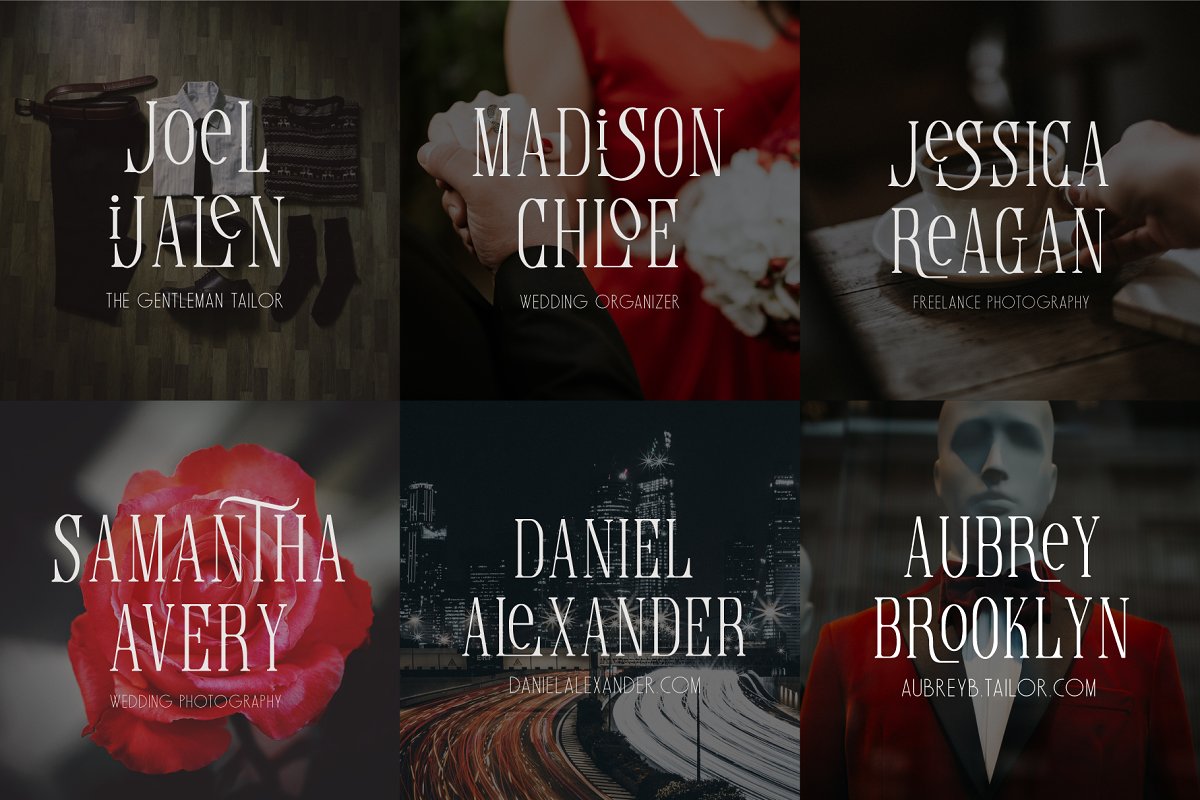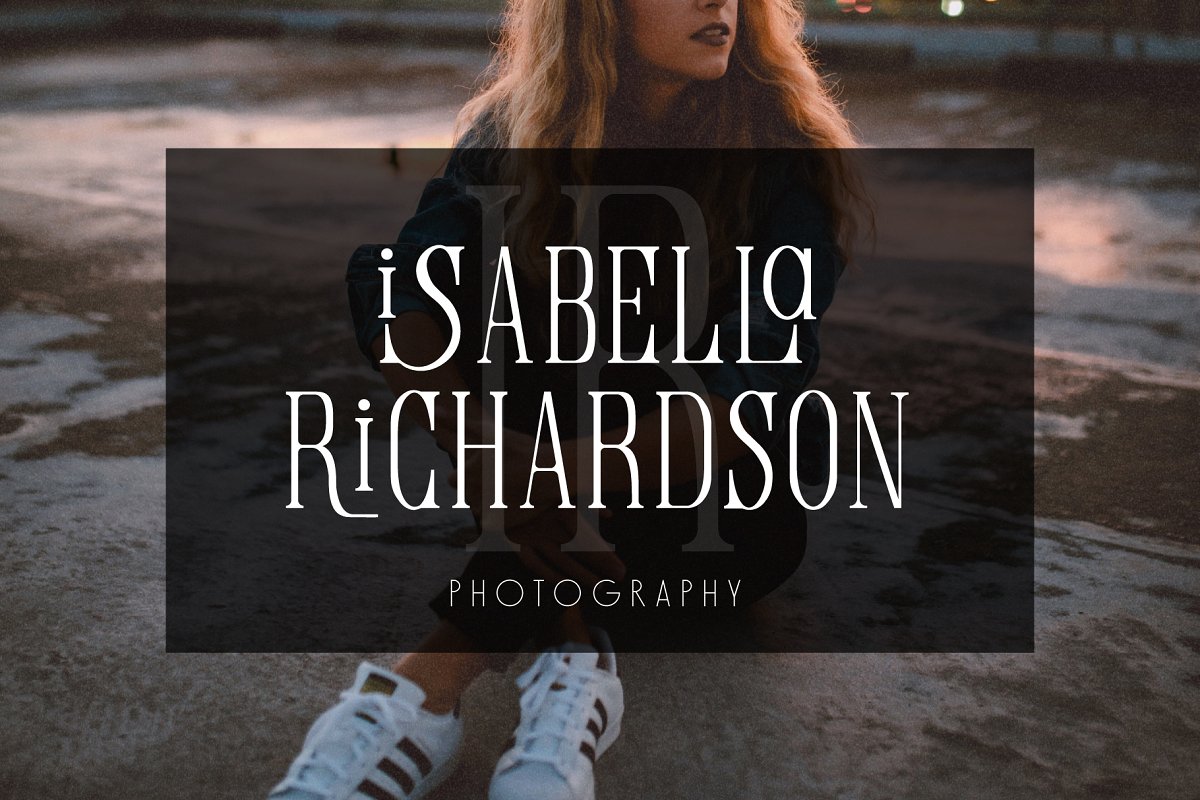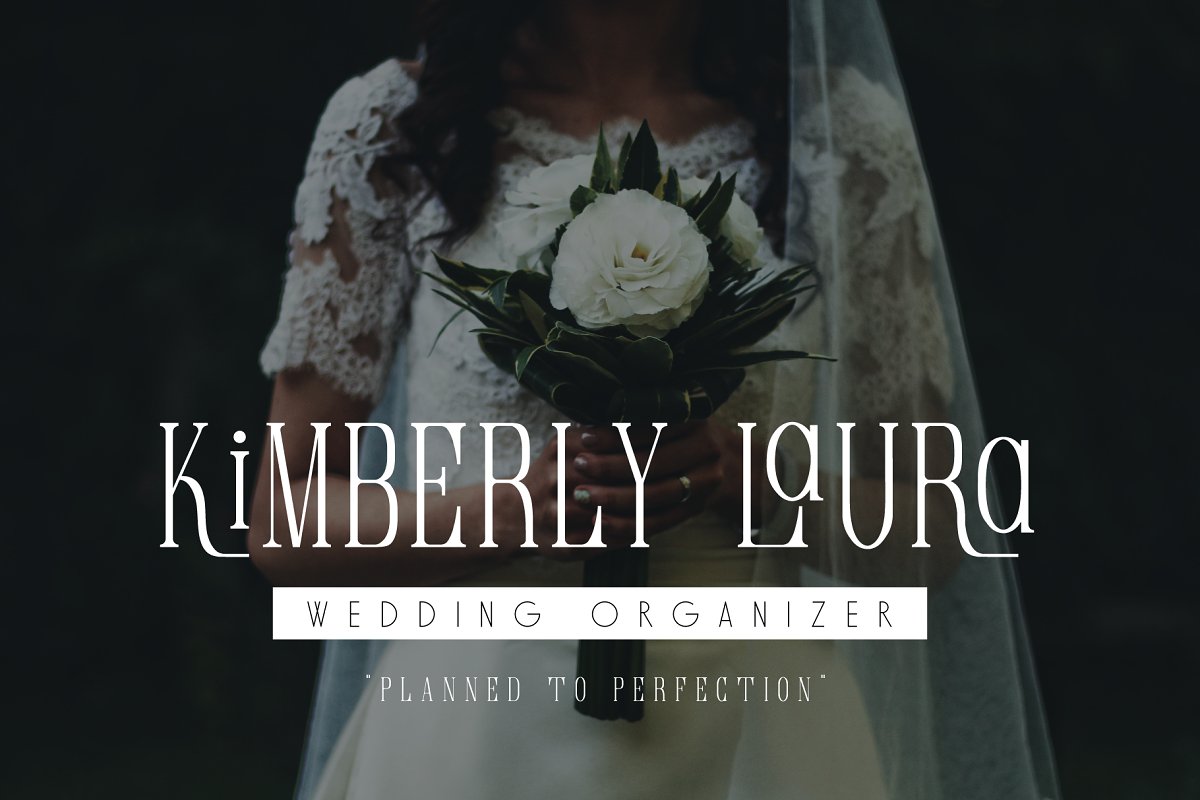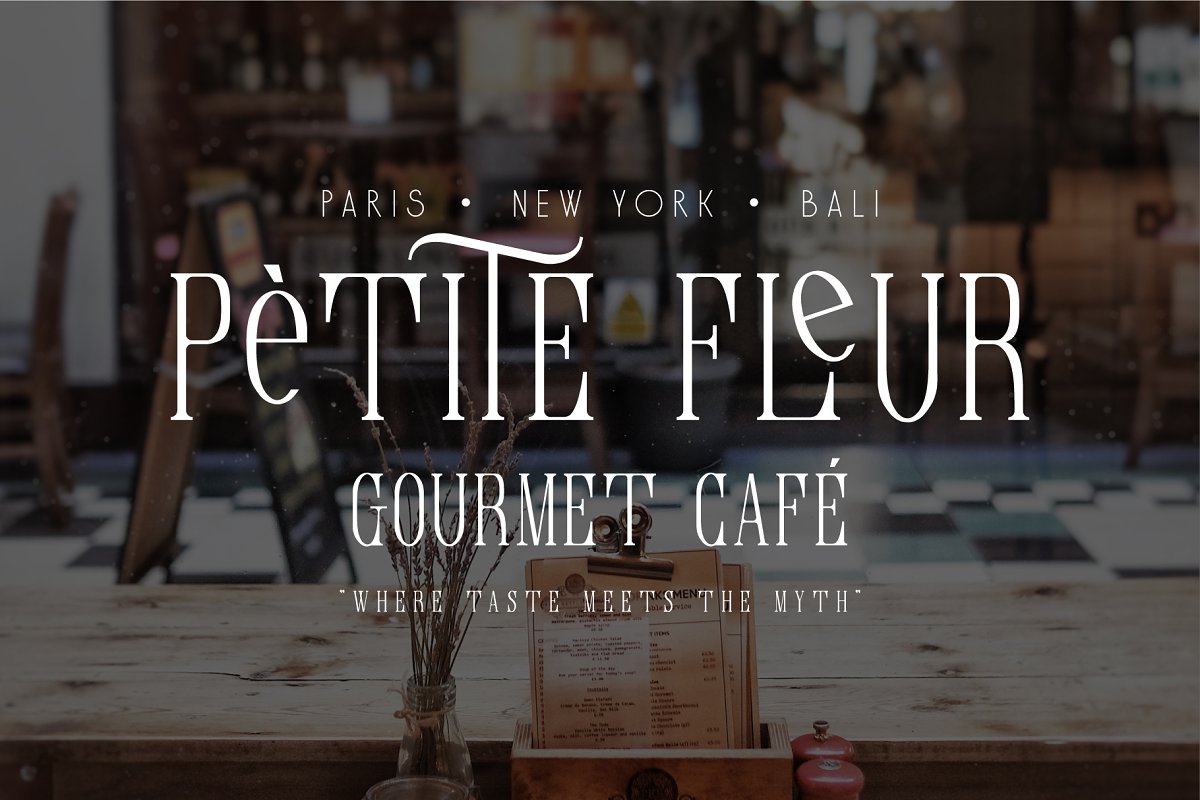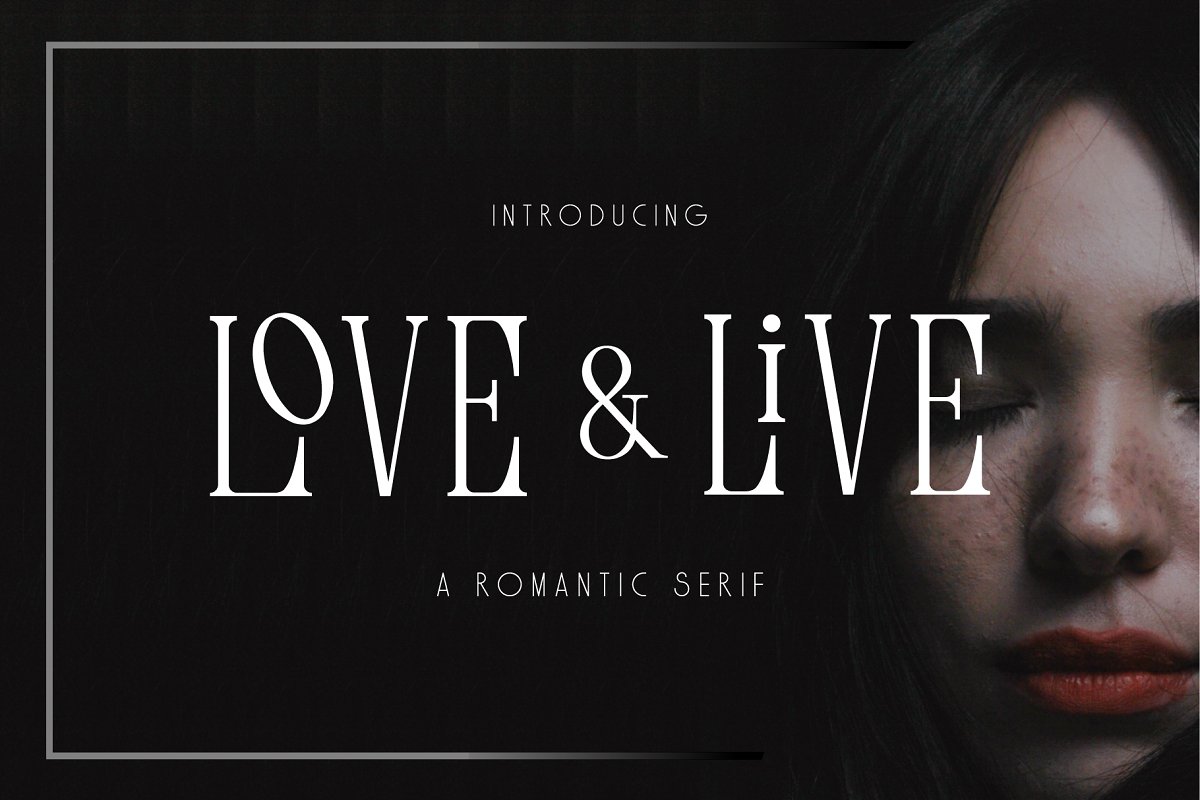
Love & Live Typeface
Love & Live Typeface – Free Demo
Introducing Love & Live Font. It is designed by Drizy, this is a premium font, are sold on creativemarket, but it was great, it is free today for download. Love & Live! a new serif font from drizy! This classy and minimalistic all-caps serif typeface features sleek lines. With upper case characters, numbers, multi language, ligatures, stylistic and punctuation. Perfect for gorgeous logos & titles, Love & Live will pair beautifully with many fonts and work well with whatever project you’re working on.